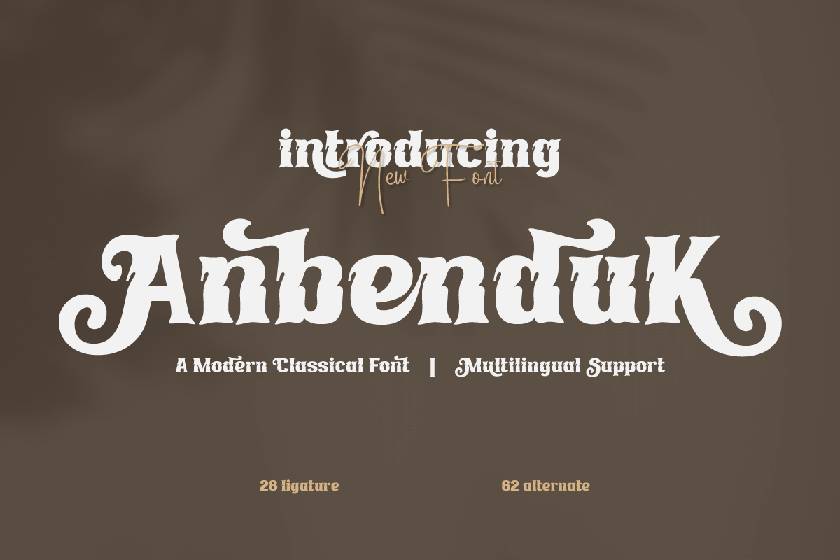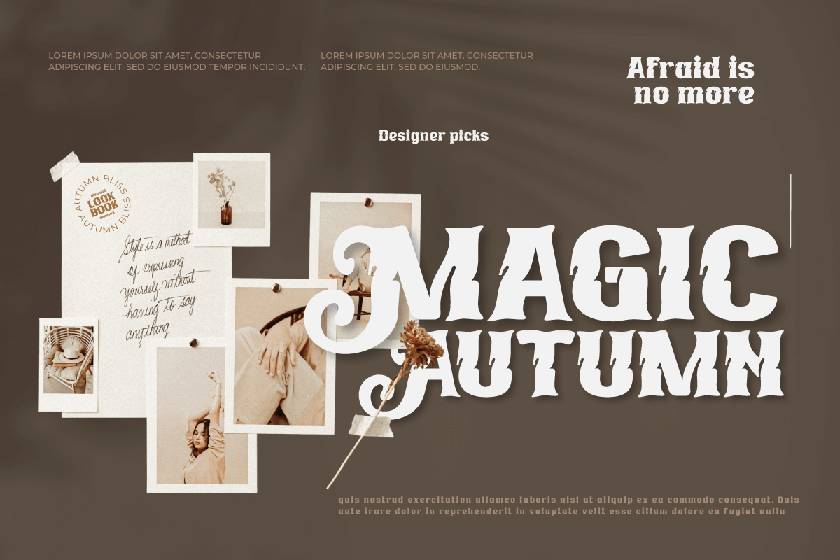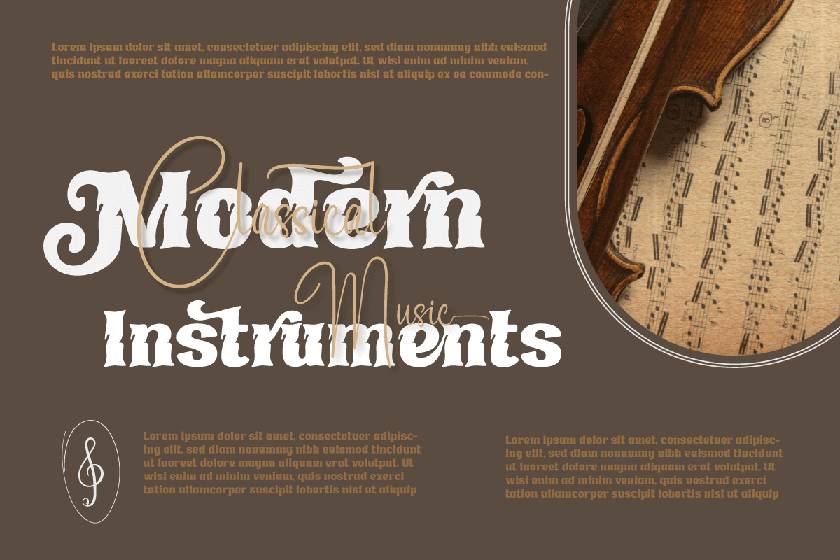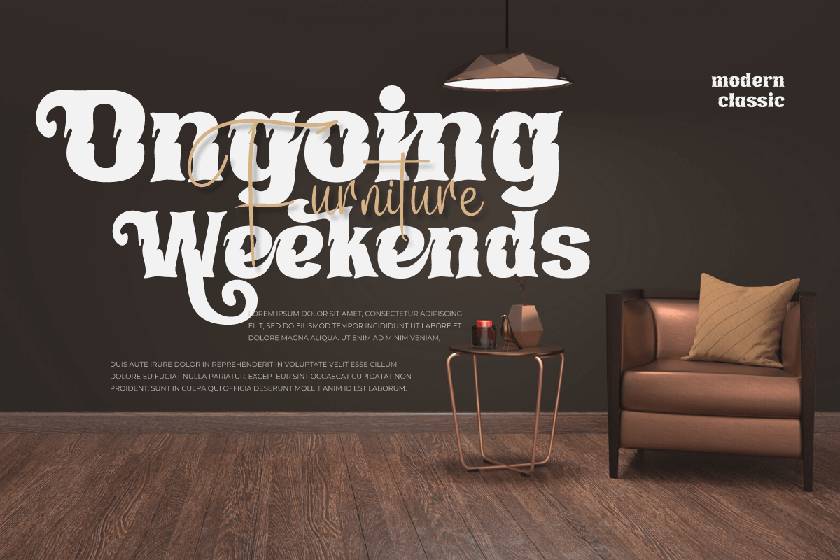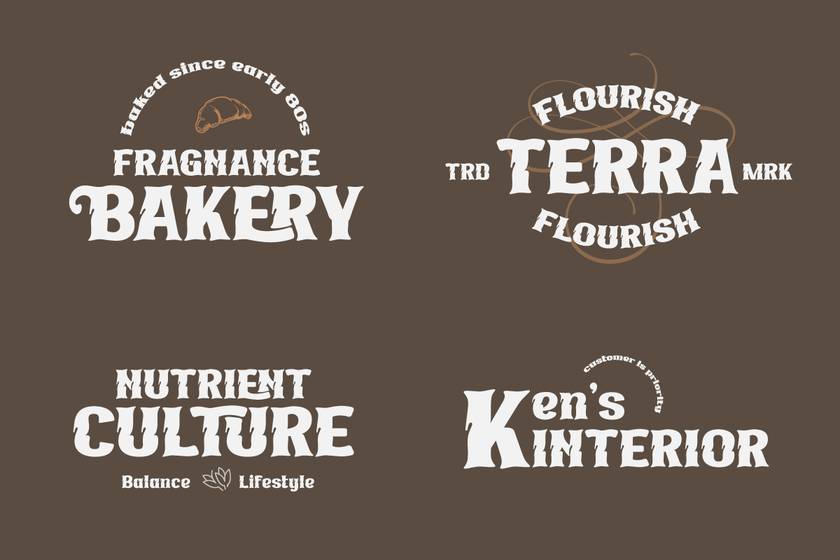
Anbenduk is a bold serif font with a strong vintage vibe, characterized by its thick, bracketed serifs and moderate stroke contrast. Its sturdy letterforms with playful curves and slightly condensed width give it a distinctive presence, making it ideal for headlines, logos, and branding that seek a classic yet attention-grabbing style. This font works well in designs aiming for a nostalgic, bold impact while retaining readability and charm.
Anbenduk Font
About Anbenduk Font